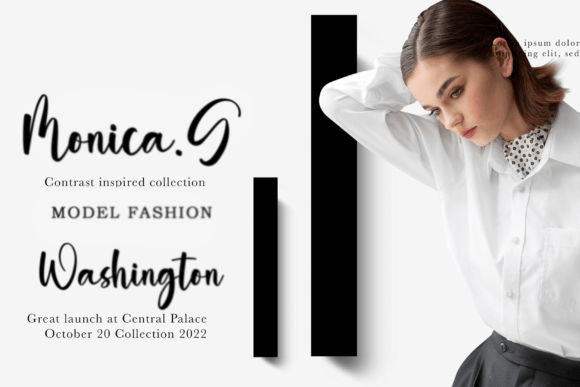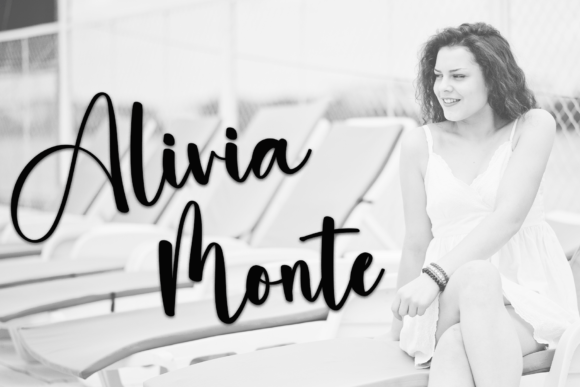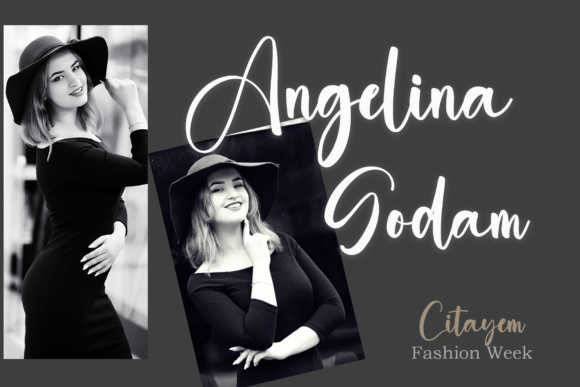
Introduction to Slowdown Font
Slowdown is a beautiful handwritten font ideal for logos, wedding stationery, photography watermarks, modern websites, and more.
Fall in love with its incredibly distinct and timeless style, and use it to create spectacular designs .
Key Features of Slowdown Font